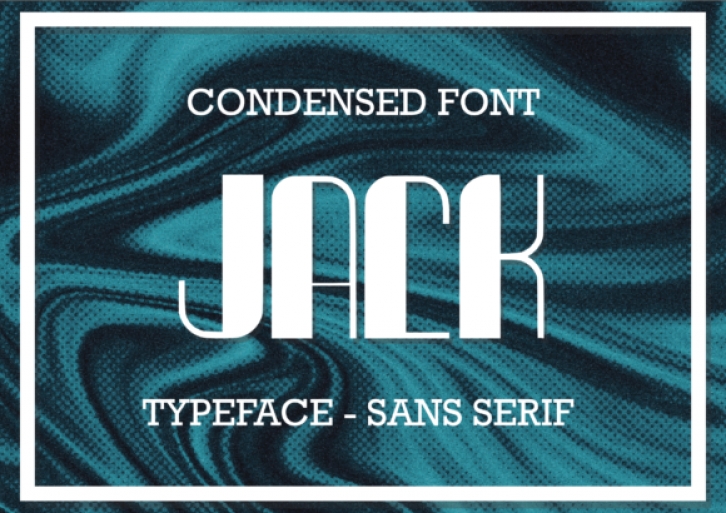
Jack is an incredibly distinct display font. Suitable to a wide variety of designs , Jack has the potential to become your favorite go-to font, no matter the occasion!